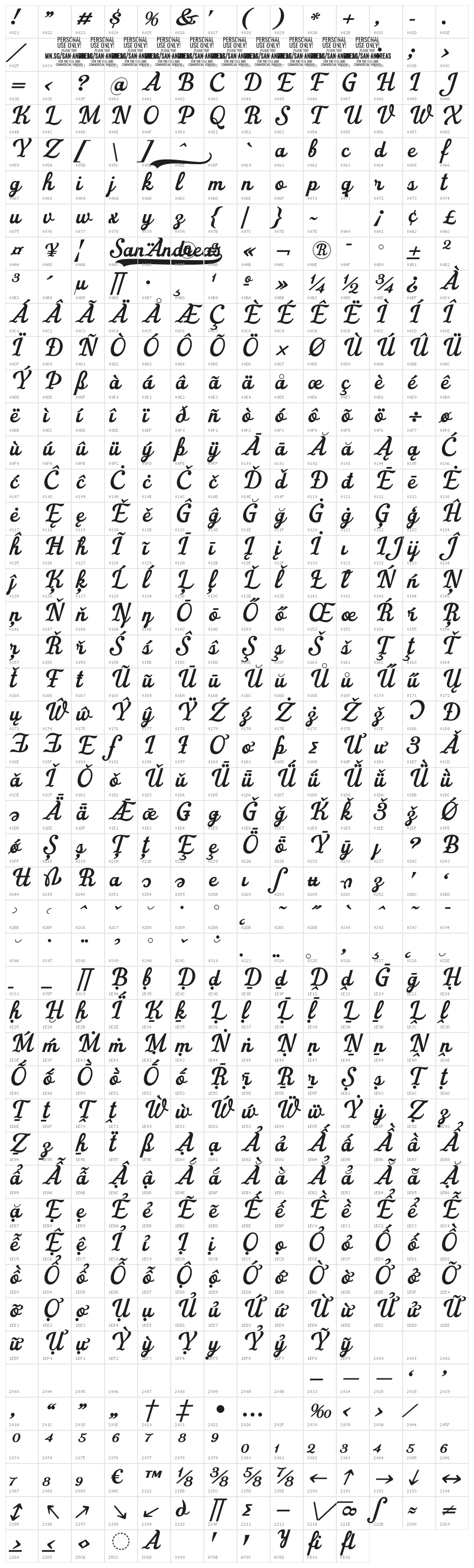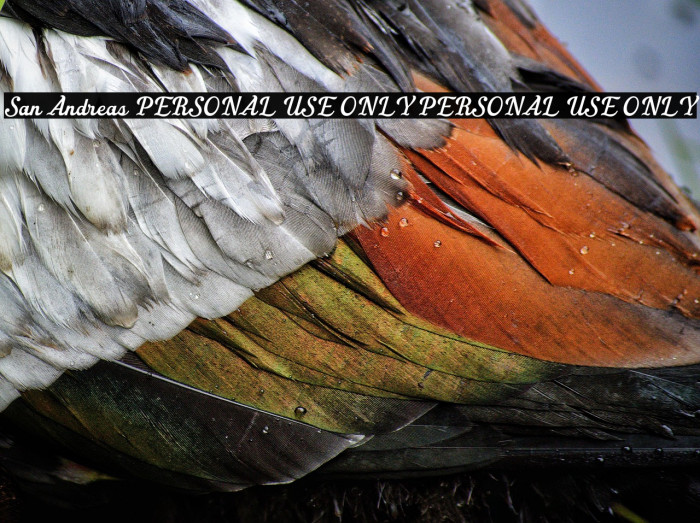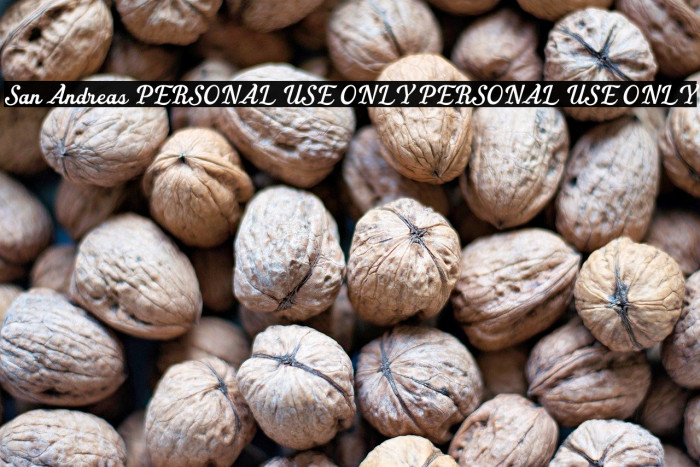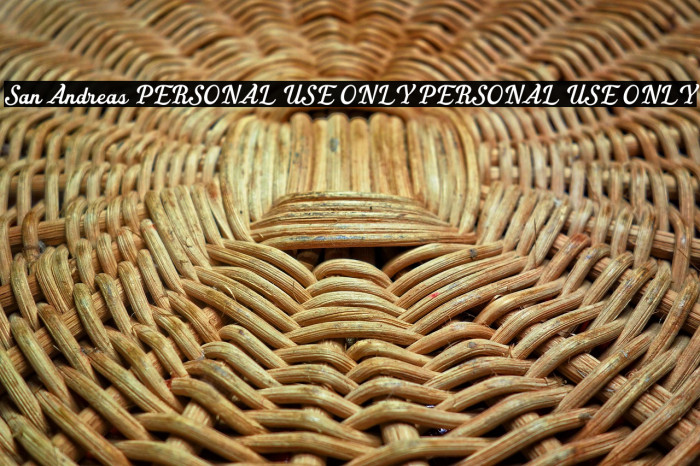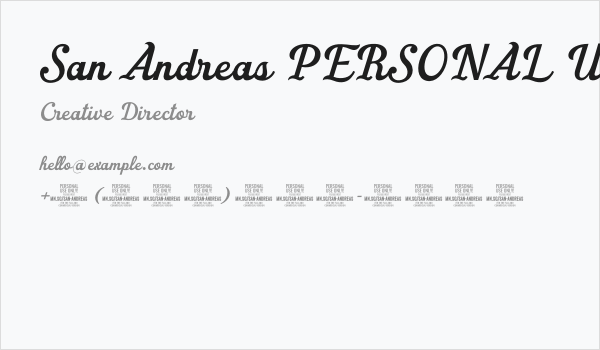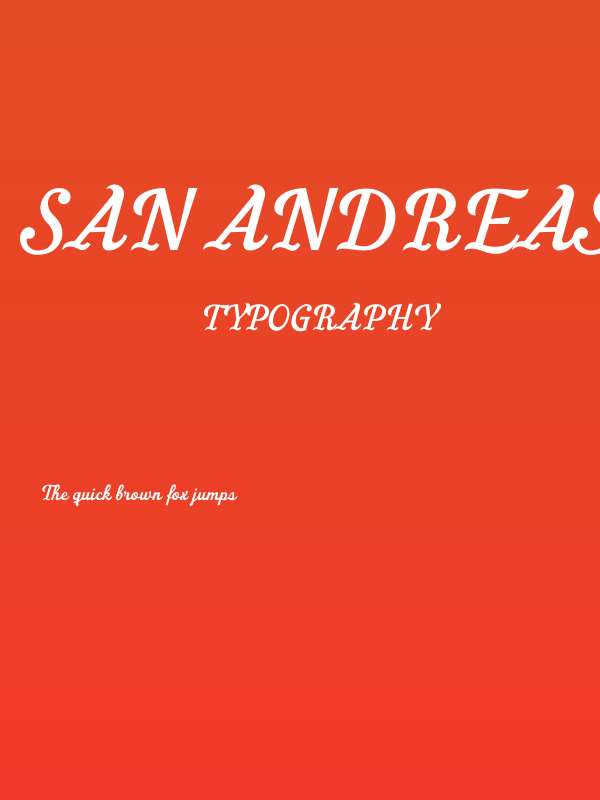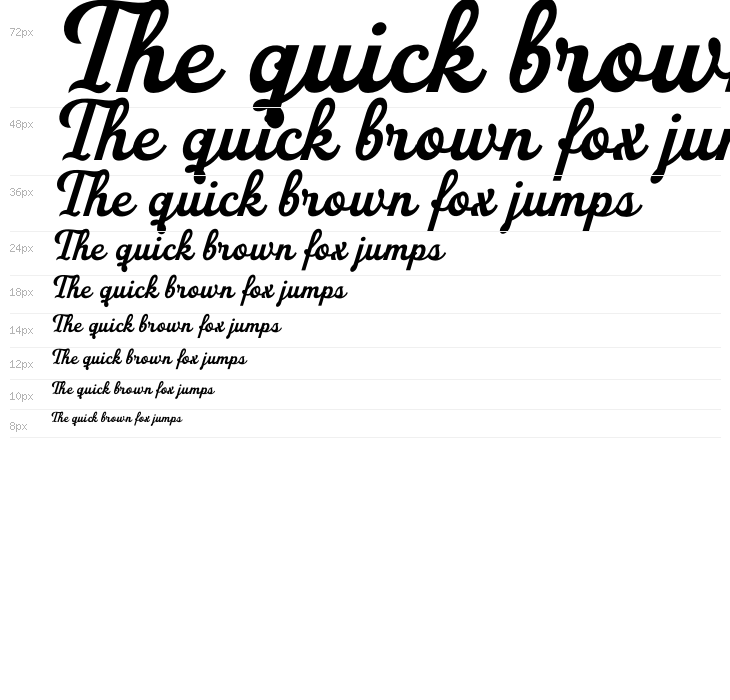
San Andreas PERSONAL USE ONLY Font
San Andreas PERSONAL USE ONLY Description
This font features a bold and dynamic script style with a strong presence. The uppercase letters are elegantly slanted, giving a sense of motion and fluidity, while the lowercase letters maintain a consistent flow with smooth curves and connections. The characters are well-balanced, offering a harmonious blend of traditional script elements with a modern twist. The numerals and special characters are designed to complement the overall style, ensuring versatility across various applications.
| Proposed Projects | Ideal for branding projects, logo designs, invitations, and any creative project requiring a stylish and impactful script font. |